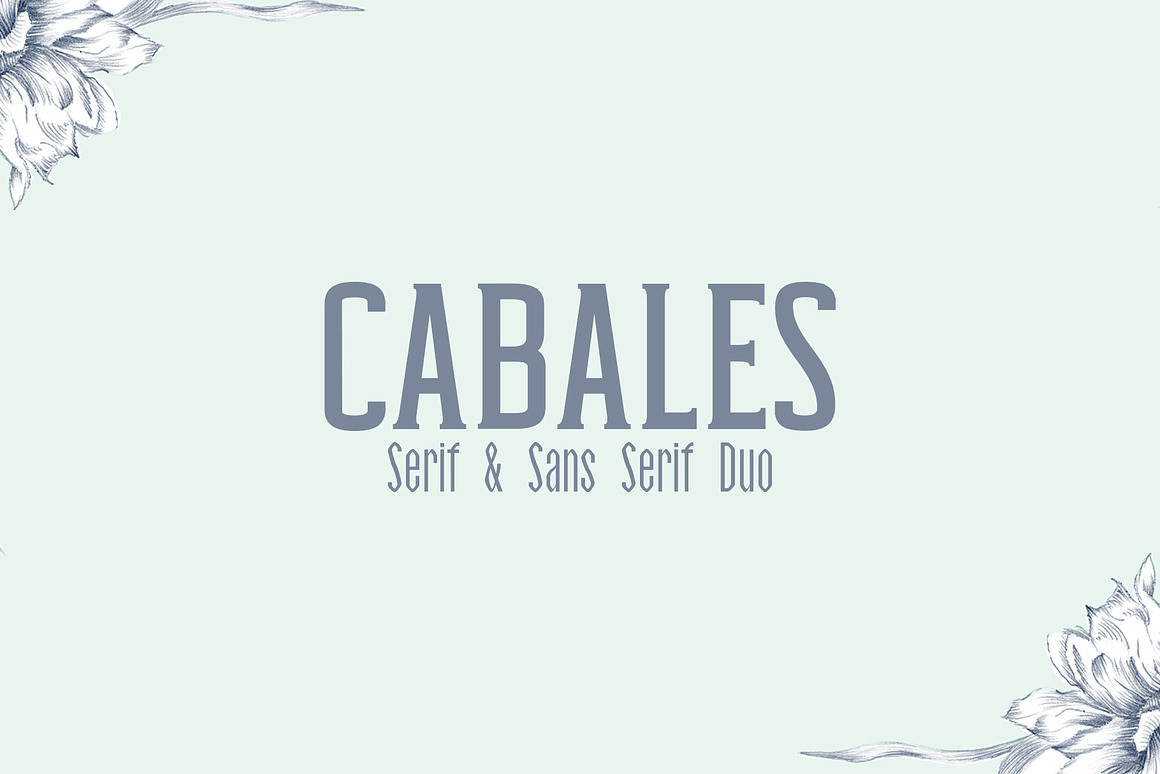
Cabales Duo 8 Font is perfect for comprehensive branding systems, elegant wedding materials, sophisticated marketing campaigns, boutique logo design, coordinated stationery sets, luxury product packaging, harmonious visual identity projects, and professional paired typography applications.
Cabales Duo 8 Font is exciting because it delivers exceptional typographic coordination with eight perfectly paired font variations that create seamless design harmony across all applications. Its sophisticated pairing system ensures optimal visual balance while providing comprehensive options for complex branding requirements and elegant hierarchical communication systems.
Cabales Duo 8 Font family includes eight harmoniously coordinated fonts with complementary styles, multiple weights, decorative elements, and stylistic alternates, offering designers the ultimate toolkit for creating unified typography solutions that maintain perfect design consistency.
Cabales Duo 8 Font Free Download represents the pinnacle of coordinated typography designed specifically for comprehensive professional branding solutions. This exceptional typeface collection showcases masterful harmony across eight font variations that ensure perfect design consistency while providing unlimited creative flexibility for sophisticated projects. The font's coordinated nature makes it particularly suitable for design agencies, luxury brands, professional services, and creative businesses requiring complete typographic systems that maintain elegant consistency across all communication touchpoints and brand applications.
Design professionals consistently choose Cabales Duo 8 Font for projects requiring complete typographic coordination and sophisticated brand harmony. Its versatile character works magnificently across all professional applications, from business cards to comprehensive brand campaigns, ensuring perfect visual unity while accommodating diverse design needs. The font's comprehensive nature creates cohesive brand experiences that establish professional recognition and sophisticated credibility.
The Cabales Duo 8 Font download package includes coordinated weights, complementary styles, decorative elements, and professional symbols that enhance its sophisticated appeal and design completeness. This ultimate collection ensures professional results in complex branding projects requiring complete typography solutions. The font performs exceptionally across all media applications where its coordinated harmony and professional consistency create significant visual impact and brand distinction.
Creative teams appreciate Cabales Duo 8 Font's ability to provide complete professional solutions and comprehensive visual coordination in competitive business markets. Its harmonious styling transcends single-font limitations while maintaining the sophistication required for professional brand positioning, making it an essential tool for organizations seeking to establish unified professional presence through superior coordinated typography and exceptional business communication.